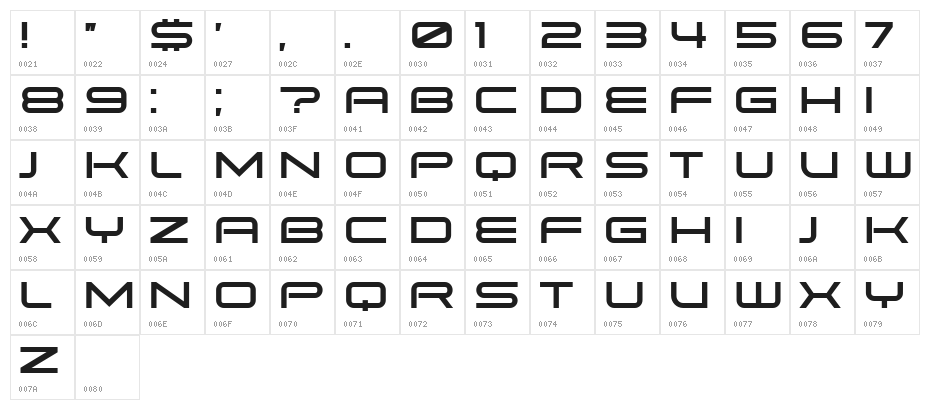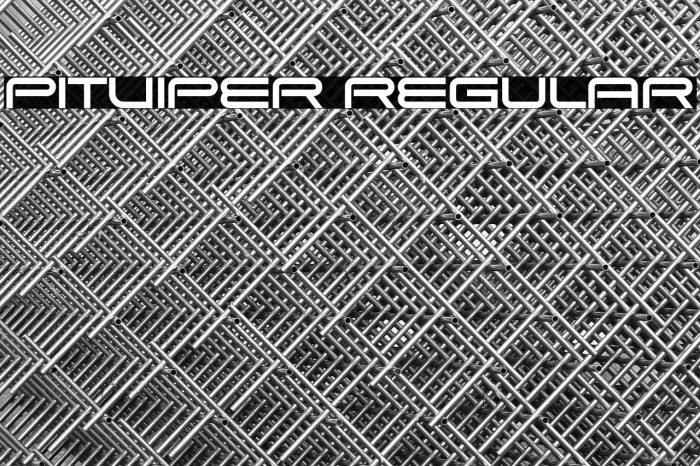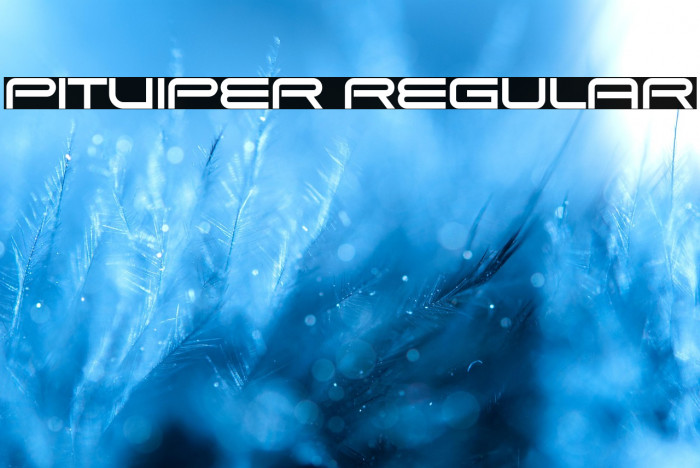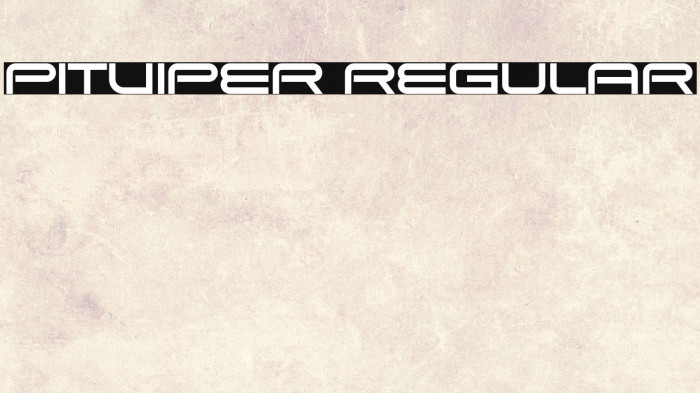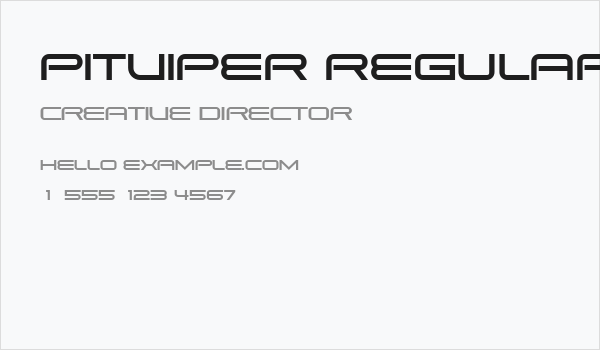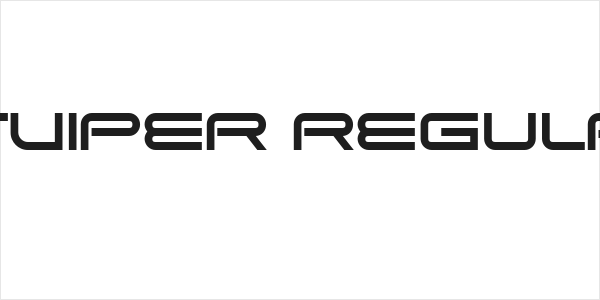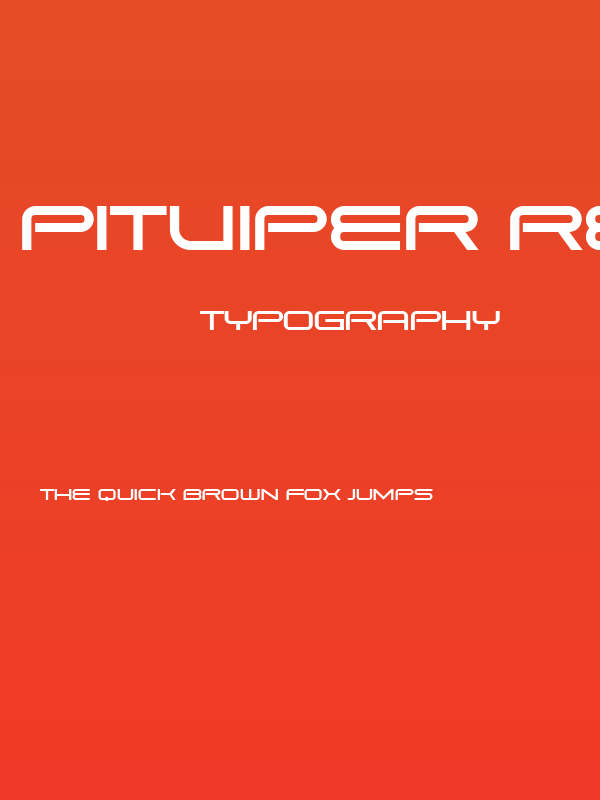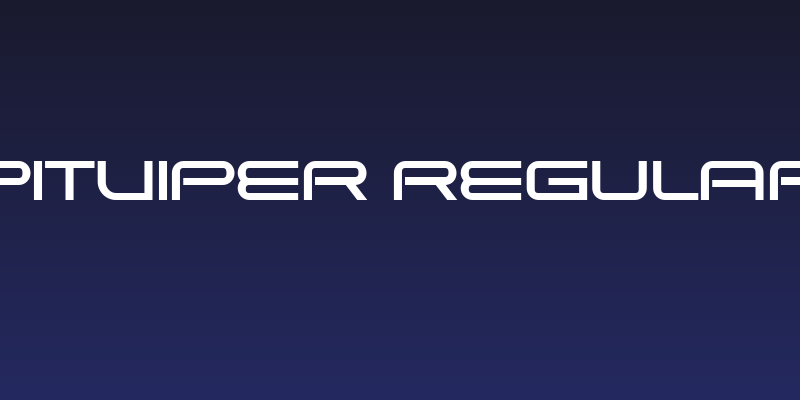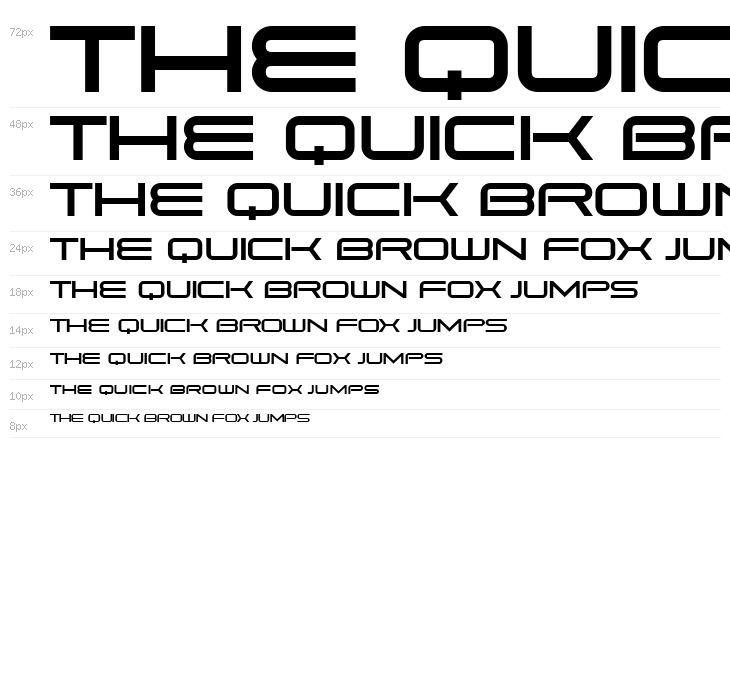
Pitviper Regular Font
Pitviper Regular Description
This font features a futuristic and geometric design, characterized by its sharp angles and clean lines. The uppercase letters are bold and structured, giving a sense of modernity and precision. The lowercase letters maintain the same geometric style, ensuring consistency throughout. Numbers are equally bold and clear, making them easily readable. Special characters are designed to match the overall aesthetic, with a focus on symmetry and balance. This font is ideal for projects that require a modern and tech-savvy appearance.
| Proposed Projects | Ideal for technology branding, sci-fi themed designs, and modern digital interfaces. |